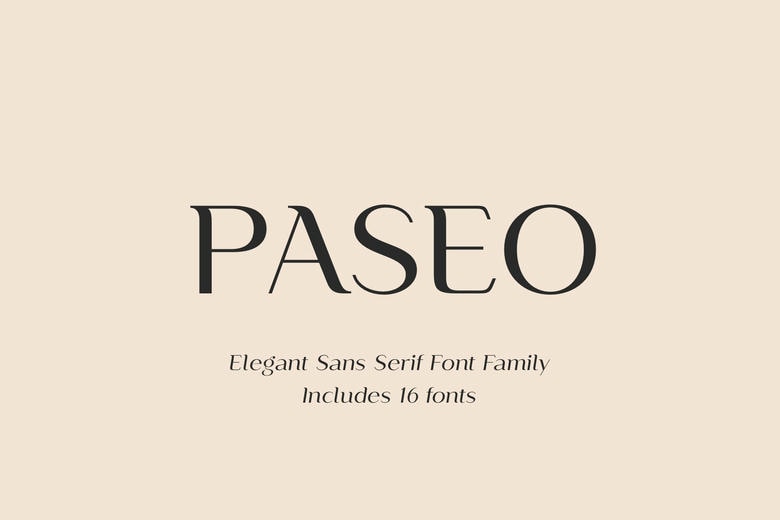
Paseo Font Family
Paseo is an elegant, modern and contrast sans-serif font family, and a great fashionable solution for your project. It includes upright and Italic style, each of them has eight weights from thin to extabold. This is a multi-purpose font that is perfect for fashion project, it is contrasted, modern and easy to read. With it, you can create logos, banners, use in advertising, packaging, book covers and magazines, headings, descriptions and much more.